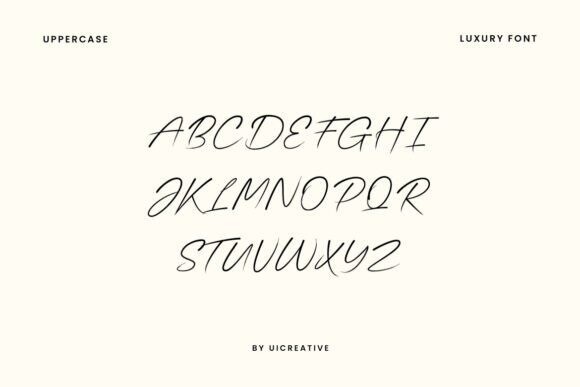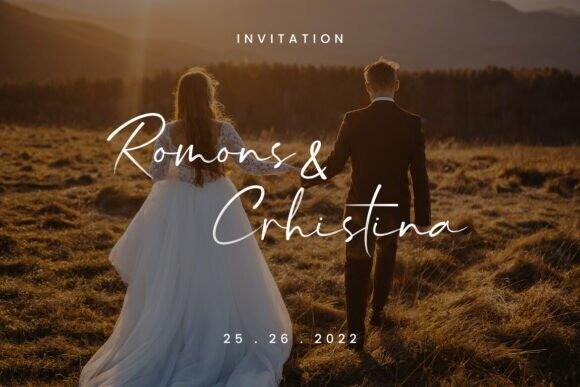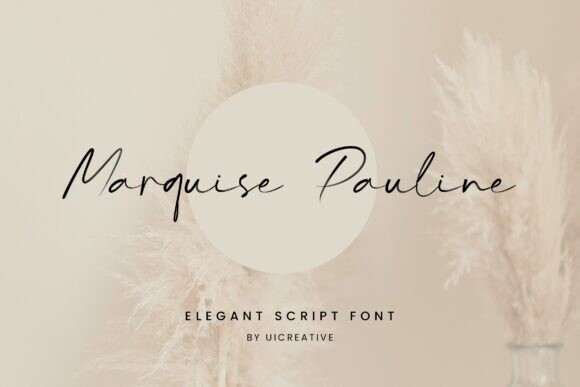
Marquise Pauline Font
Marquise Pauline Elegant Script Font. This font feels beautiful classy, elegant, and stylish. It is ideally suited for a wide variety of projects, such as signature, stationery, logo, wedding, typography quotes, magazine or book covers, website headers, branding, and more. Also, fashion-related branding or editorial design displays both masculine and feminine qualities.